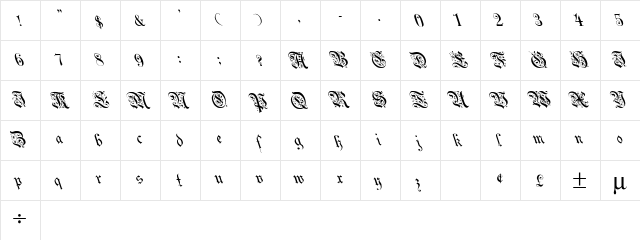
Uechi Lefti Regular
Design Context for Uechi Lefti Typeface
Uechi Lefti is a composed and adaptable typeface that performs quietly and consistently across a wide range of design contexts.